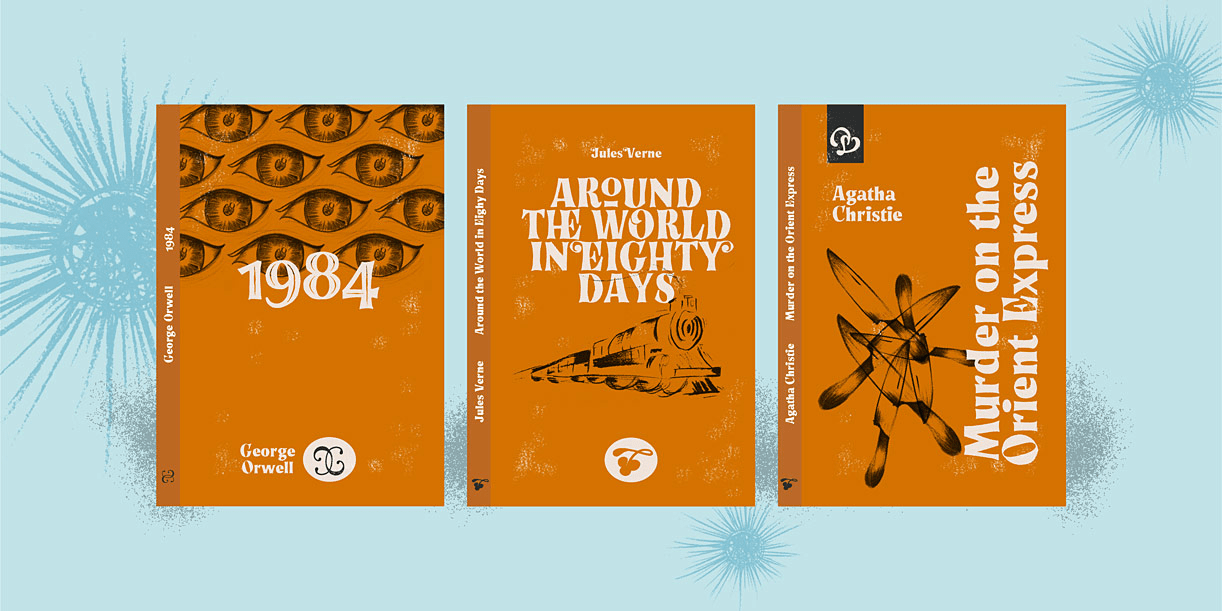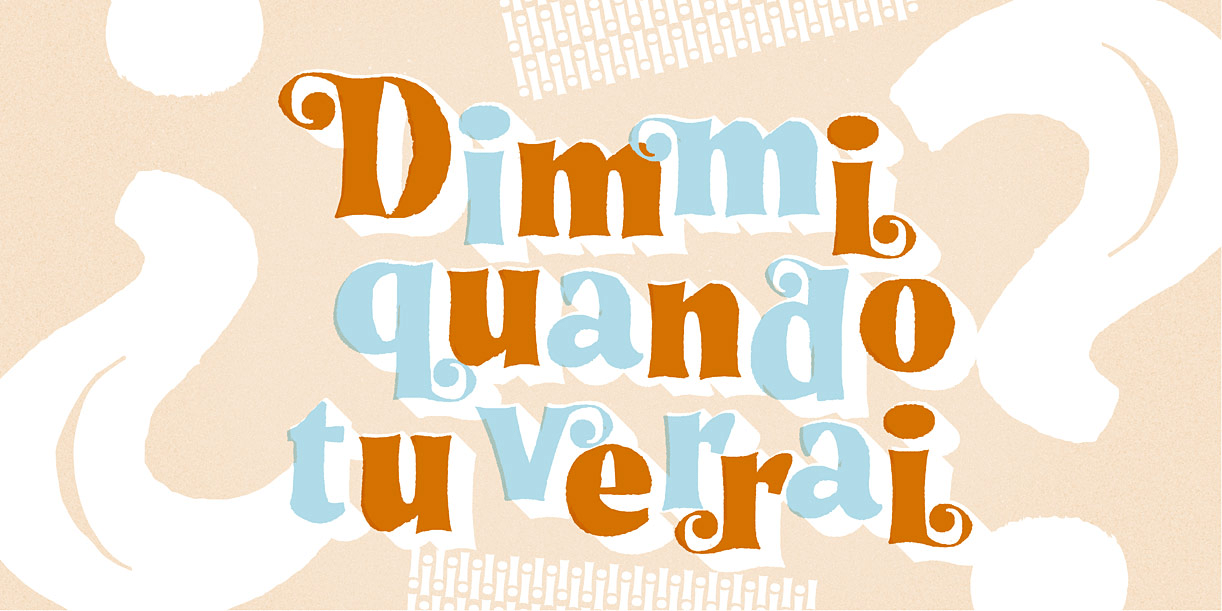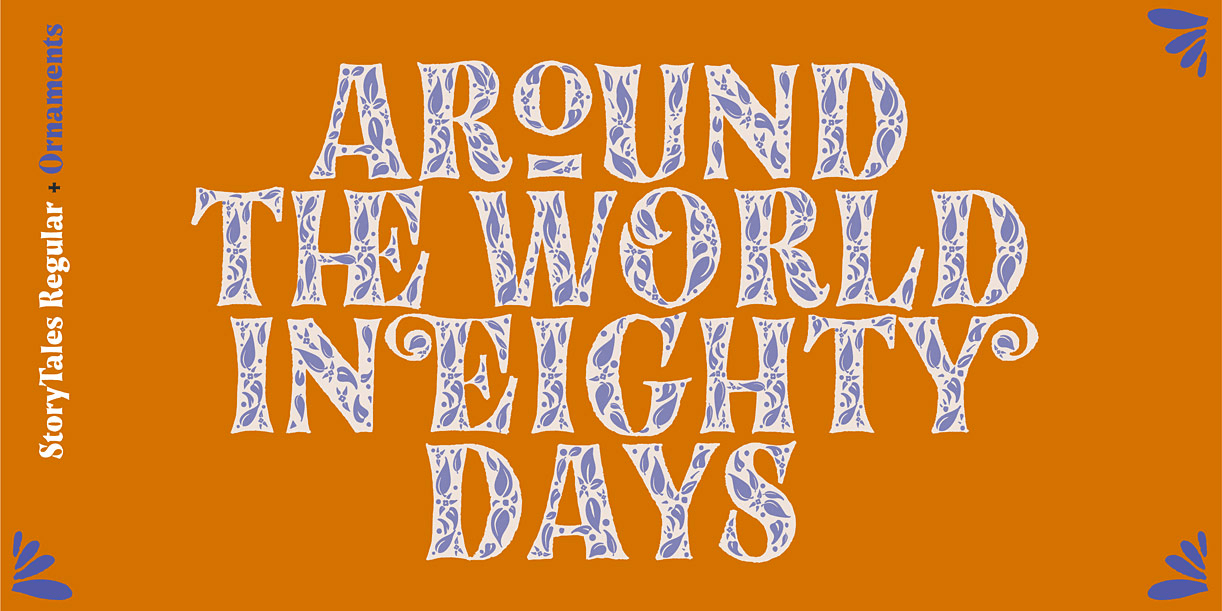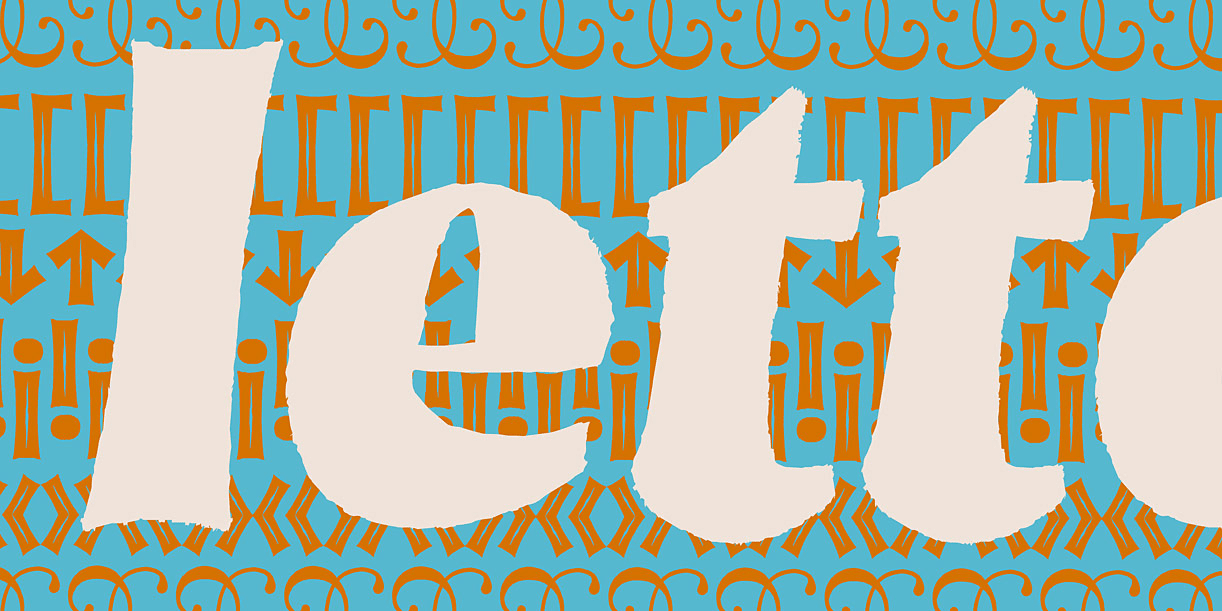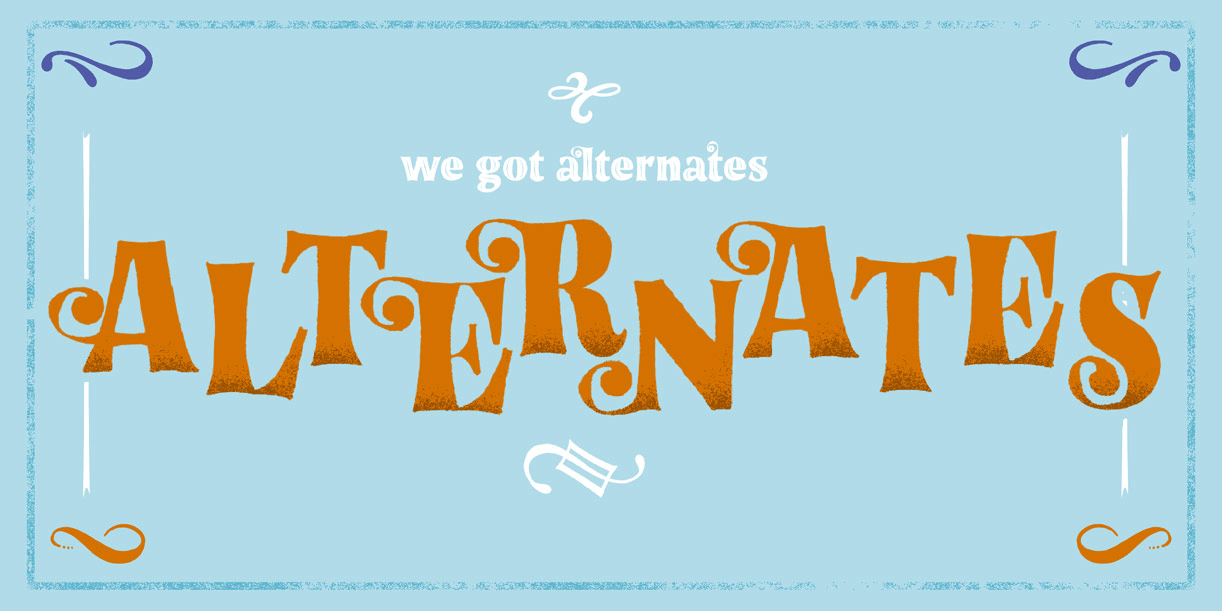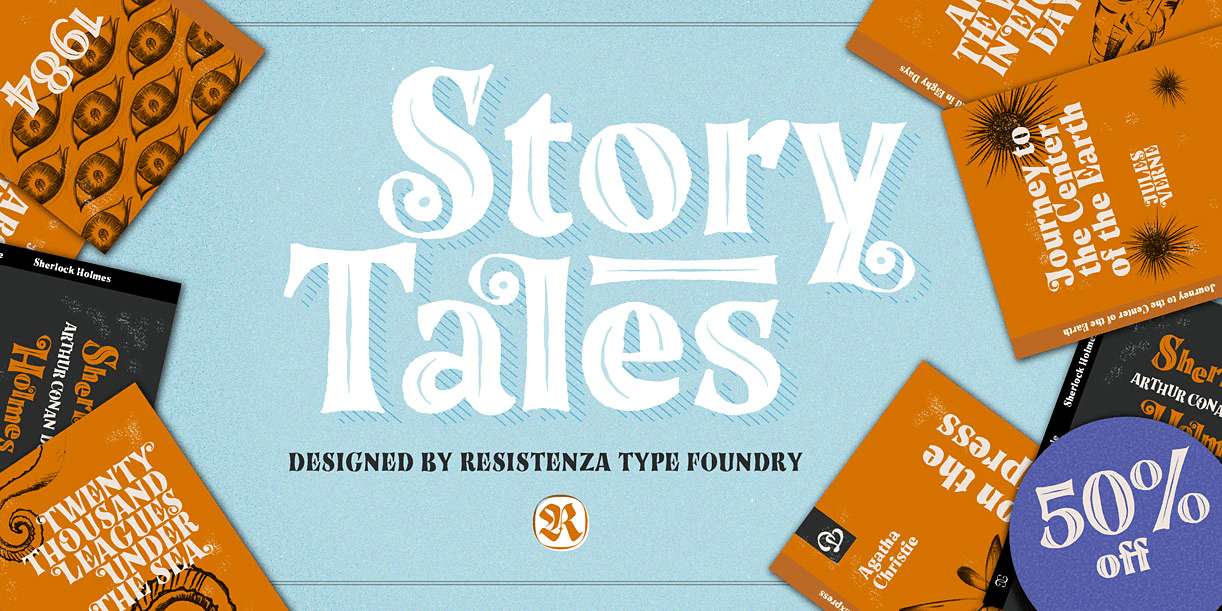
About Story Tales
A fairy tale, is a folklore genre that takes the form of a short story. Story tale, is a new type family for wonderous, romantic, magical and playful narratives brought to you by Resitenza. The 1970s were wild and whimsical times. Book covers from this…